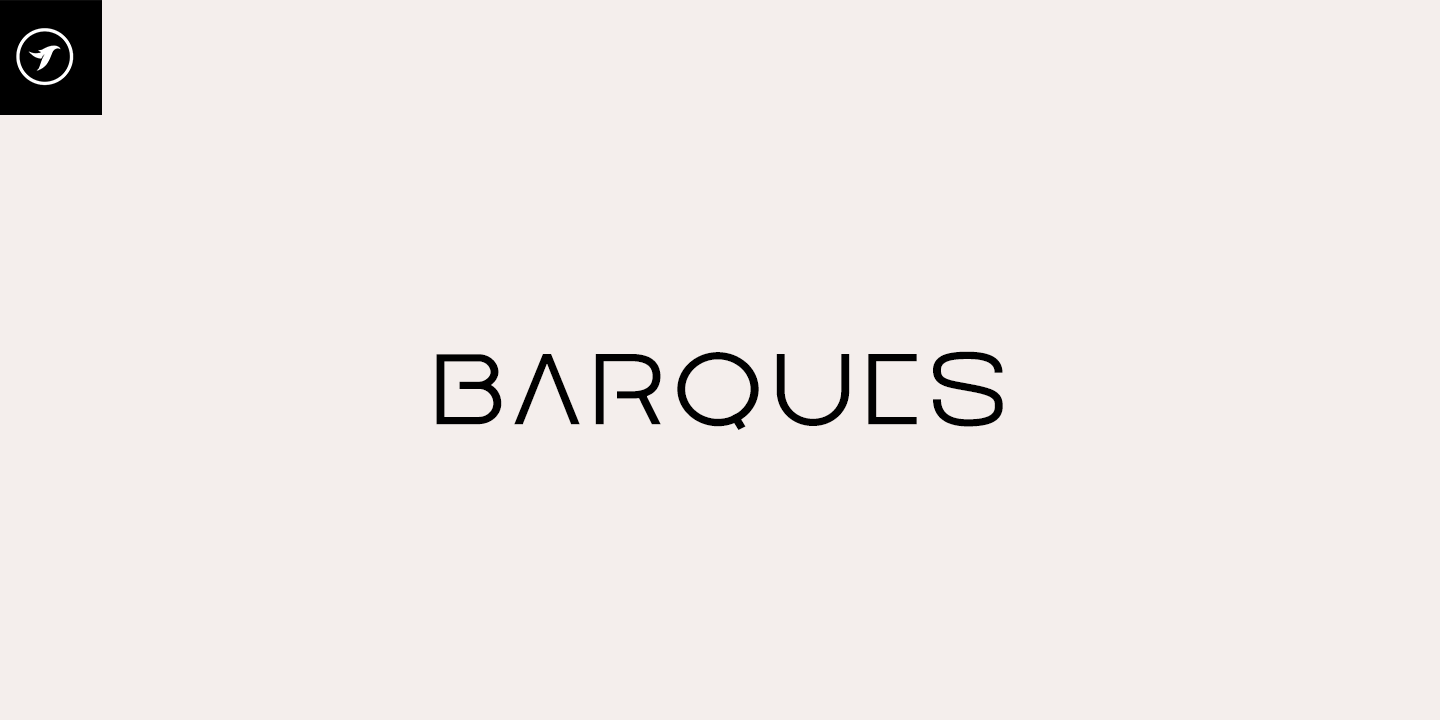
Perfect for maritime branding, nautical event posters, seafood restaurant menus, coastal resort marketing, sailing club materials, marine equipment catalogs, adventure travel campaigns, and waterfront property advertising.
This font is exciting because it captures the timeless romance and adventurous spirit of maritime exploration, evoking feelings of freedom, discovery, and the endless possibilities that come with oceanic journeys.
Set sail on a typographic adventure with Barques Font Free Download, a captivating typeface that embodies the spirit of maritime exploration and coastal elegance. This exceptional font brings the romance of the sea to contemporary design projects, making it perfect for brands and organizations seeking to evoke the timeless appeal of nautical adventure and oceanic discovery.
Barques Font features distinctive letterforms inspired by classic maritime typography and ship lettering traditions. The carefully crafted characters combine flowing curves reminiscent of ocean waves with sturdy structural elements that echo the robust construction of traditional sailing vessels. This unique combination creates immediate visual associations with seafaring heritage while maintaining modern readability and professional appeal.
The font's versatility makes it ideal for businesses and organizations connected to maritime industries, coastal tourism, and oceanic themes. Whether you're designing brand identities for luxury yacht clubs that cater to discerning clientele, creating promotional materials for coastal resorts that promise unforgettable experiences, or developing marketing campaigns for adventure tourism companies, Barques Font delivers the authentic nautical character that resonates with audiences seeking genuine maritime experiences.
Hospitality and tourism professionals worldwide choose the Barques Font Free Download for projects requiring coastal charm and maritime authenticity. The font works brilliantly for seafood restaurants celebrating oceanic cuisine, marina facilities showcasing boat services, sailing schools promoting nautical education, and any business wanting to tap into the powerful emotional connection that maritime themes create with adventure-seeking customers.
The comprehensive Barques Font family includes multiple weights and stylistic variations that maintain the signature nautical aesthetic while providing design flexibility for diverse applications. Each character demonstrates meticulous attention to maritime design principles, ensuring the oceanic character remains authentic and visually appealing across all sizes, from large-scale harbor signage to detailed menu typography.
This typeface excels in applications where evoking specific emotions and lifestyle aspirations is essential for brand success and customer engagement. The maritime character creates natural storytelling opportunities that eliminate the need for additional design elements, allowing the typography itself to communicate adventure, freedom, and the allure of oceanic exploration.
Barques Font's technical excellence ensures optimal performance across both digital and print applications common in maritime and tourism industries. The letterforms maintain their distinctive character when reproduced on various materials, from weatherproof outdoor signage that must withstand coastal conditions to elegant printed materials for luxury maritime services.
The font represents more than typography—it's a direct connection to humanity's eternal fascination with the sea and the adventures that await beyond the horizon, making it invaluable for brands seeking to inspire wanderlust and oceanic dreams.